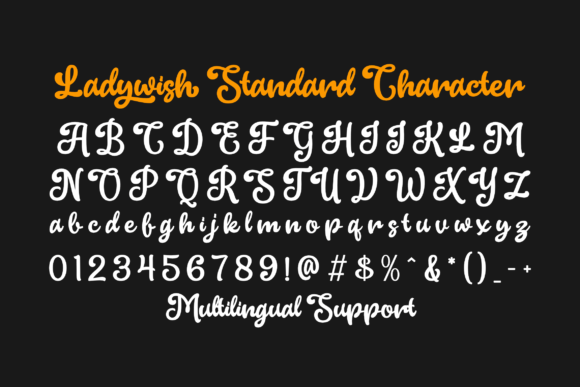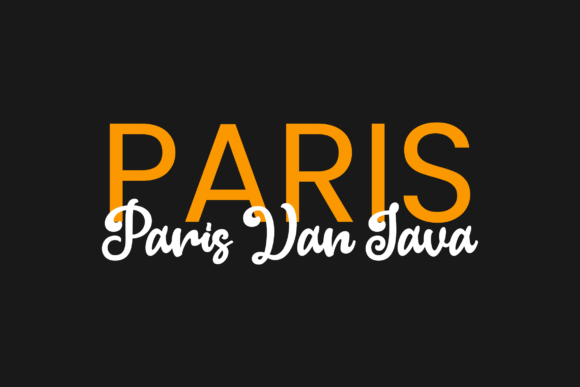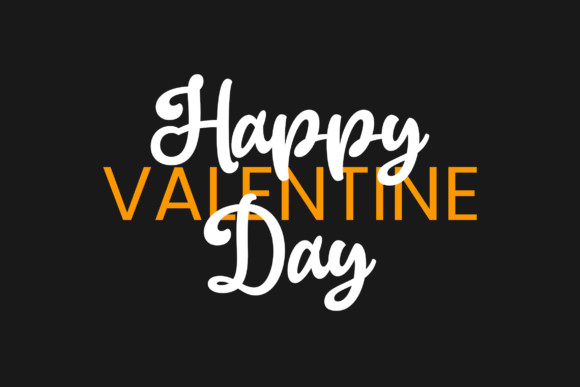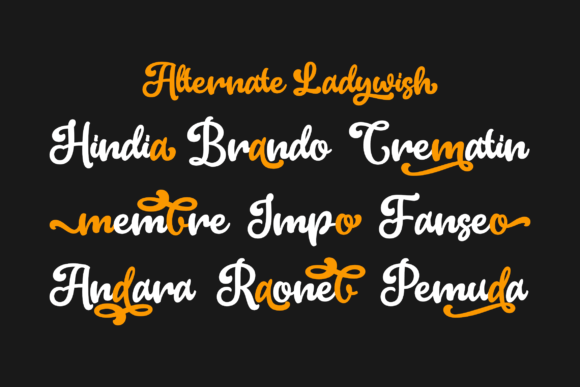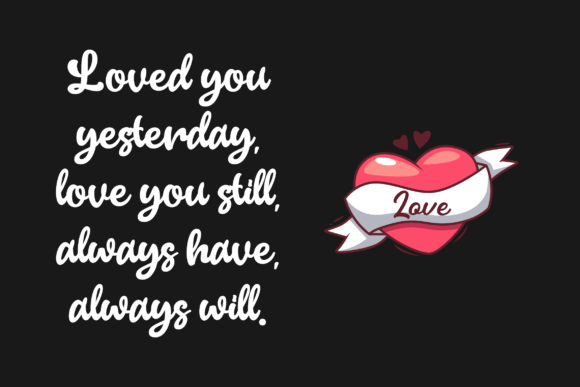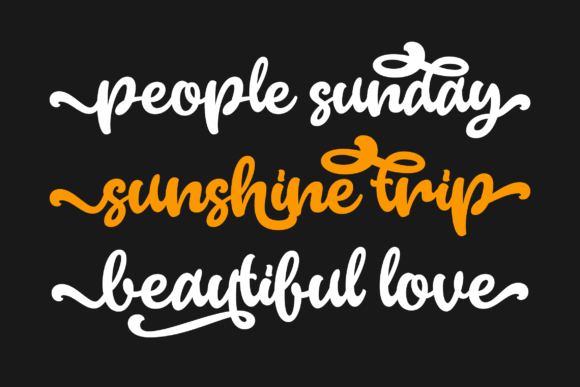
Introduction to Ladywish Font
Ladywish is a romantic and sweet calligraphy typeface with characters that dance along the baseline.
It has a casual, yet elegant touch It is perfect for branding projects, logos, wedding designs, social media posts, advertisements, product packaging, product designs, labels, photography, watermarks, invitations, stationery and any projects that need handwriting taste.
Key Features of Ladywish Font